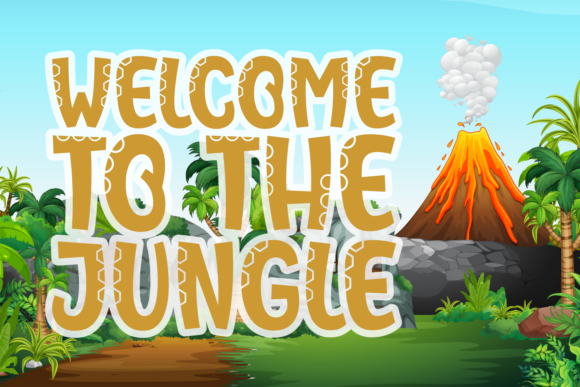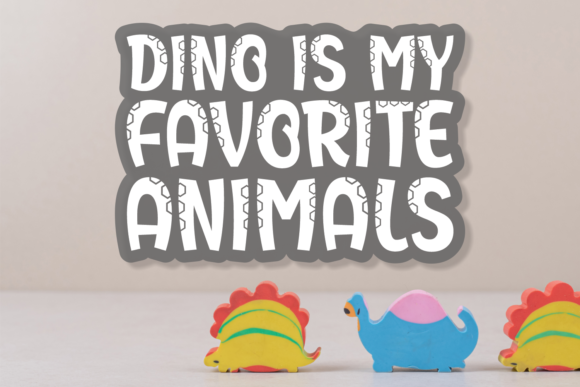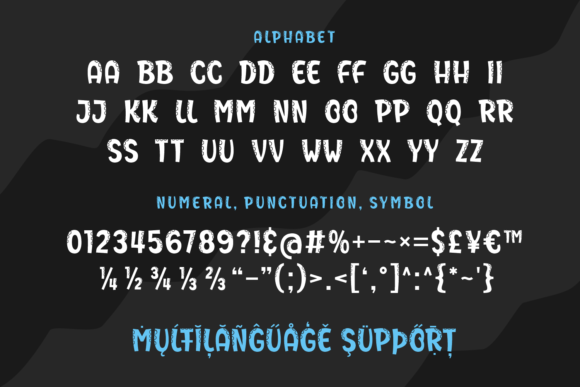
Dino Raco Font: Unleash Your Inner Child with this Playful Display Font
Are you looking for a font that can add a touch of playfulness and creativity to your designs? Look no further than the Dino Raco font! This delightful display font is perfect for designers and crafters who want to create fun and engaging content for kids and adults alike. In this article, we’ll dive into the world of Dino Raco and explore its features, uses, and benefits.
What is Dino Raco Font?
Dino Raco is a playful and creative display font that is inspired by dinosaurs-themed designs. As its name suggests, this font is a fun and childish representation of the prehistoric era. With its cartoonish style, Dino Raco is perfect for designs that require a lighthearted and humorous touch.
Features of Dino Raco Font
Dino Raco font comes with several features that make it a versatile and engaging choice for designers. Some of its notable features include:
- Playful and childish design: Dino Raco’s cartoonish style is perfect for kids’ designs, birthday cards, and party decorations.
- Display font: This font is designed to make a statement, making it perfect for headlines, titles, and quotes.
- Easy to read: Despite its playful design, Dino Raco is easy to read, making it suitable for body text and captions.
- Multilingual support: Dino Raco font supports multiple languages, making it a great choice for international designs.
Uses of Dino Raco Font
Dino Raco font is perfect for a variety of design projects, including:
- Birthday cards: Add a playful touch to your birthday cards with Dino Raco’s fun and childish design.
- Kids’ clothing designs: Create fun and engaging designs for kids’ clothing, such as t-shirts, hoodies, and onesies.
- Party decorations: Use Dino Raco to create fun and festive party decorations, such as banners, signs, and invitations.
- T-shirts and apparel: Design fun and quirky t-shirts and apparel with Dino Raco’s playful font.
- Quotes and posters: Use Dino Raco to create eye-catching quotes and posters that are perfect for social media, blogs, and websites.
Benefits of Using Dino Raco Font
Using Dino Raco font offers several benefits, including:
- Unique and creative designs: Dino Raco’s playful design allows you to create unique and creative designs that stand out from the crowd.
- Time-saving: With Dino Raco, you can create professional-looking designs in no time, saving you time and effort.
- Versatility: Dino Raco font is versatile and can be used for a variety of design projects, from kids’ designs to adult apparel.
In conclusion, Dino Raco font is a playful and creative display font that is perfect for designers and crafters who want to add a touch of fun and whimsy to their designs. With its cartoonish style, versatility, and ease of use, Dino Raco is an excellent choice for a variety of design projects. Whether you’re creating birthday cards, kids’ clothing designs, or party decorations, Dino Raco font is sure to bring a smile to your audience’s faces.